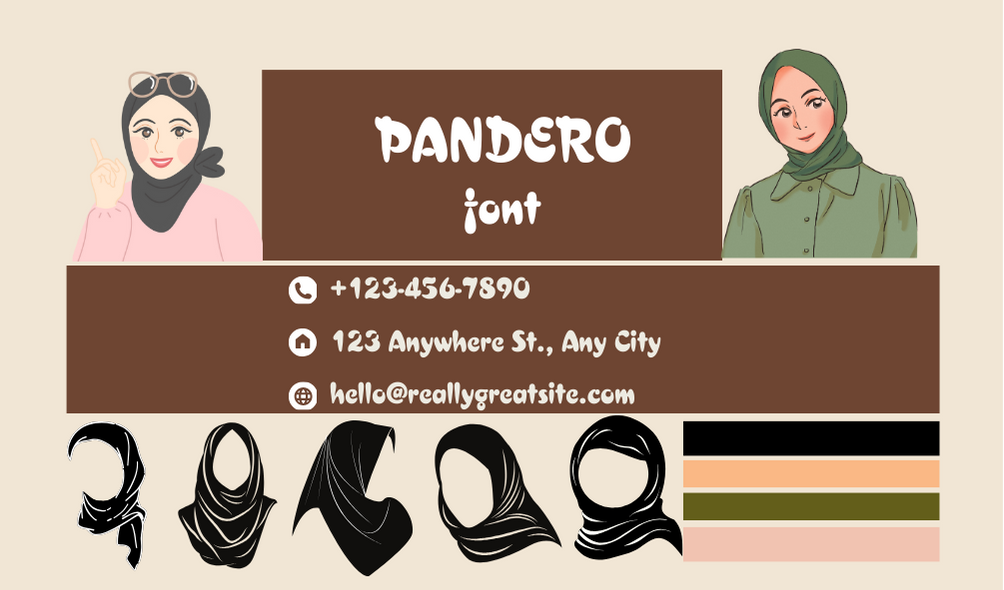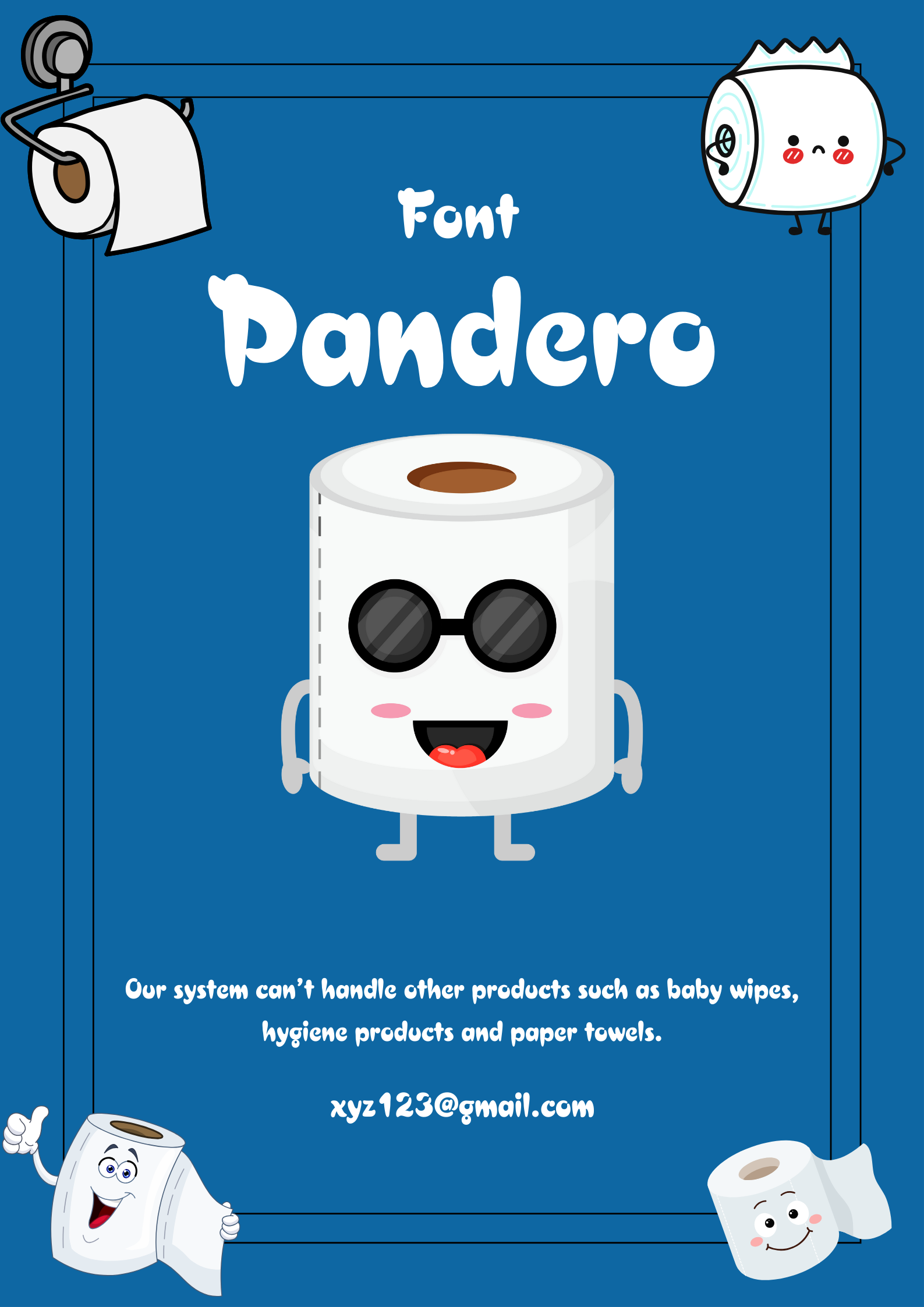
Pandero is a versatile font that can be used for a variety of fun and creative designs. The Regular font subfamily is the most basic and versatile, making it a good choice for many different projects.